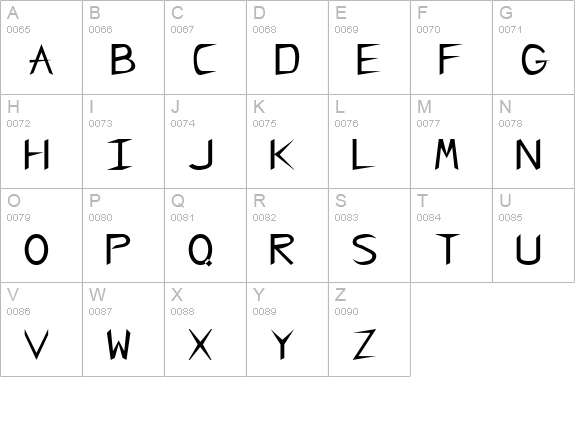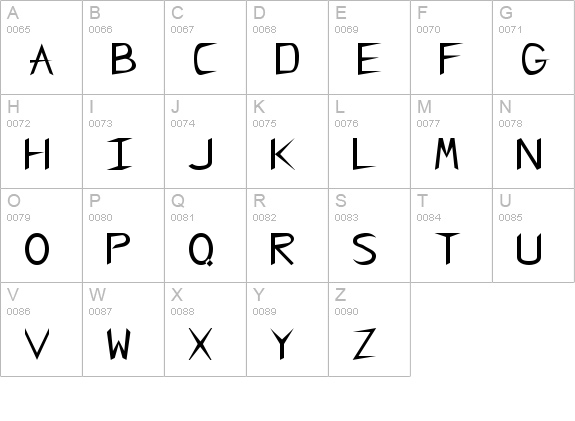
CharlieChan Normal Font Details
CharlieChan Normal is the standard, neutral variant in the CharlieChan typeface family \xE2\x80\x94 well suited to general body text, paragraphs, and standard typographic work.
CharlieChan Normal font is a stylish and versatile typeface that exudes elegance and sophistication. With its classic yet modern design, this font is perfect for a wide range of projects, from branding to packaging to editorial design. It features clean lines and a sleek appearance that will add a touch of professionalism to any project. The best part? CharlieChan Normal font is completely free to download at FontsMarket.com. This means you can easily access this high-quality typeface without breaking the bank. Whether you're a seasoned designer looking to expand your font collection or a beginner just starting out, CharlieChan Normal font is a must-have addition to your toolkit. Download it today and elevate your designs with this timeless and elegant font.